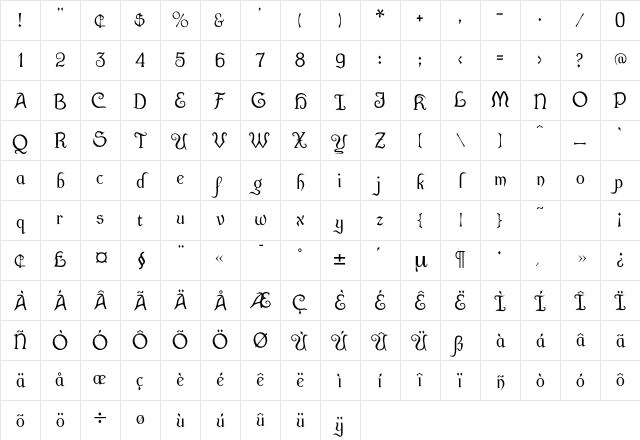
Griseldis Regular
Design Context for Griseldis
Griseldis is a composed and adaptable typeface that performs quietly and consistently across a wide range of design contexts.